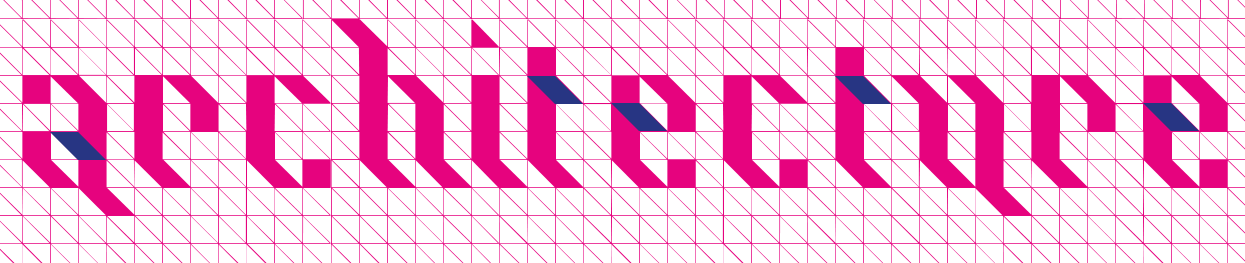
Fontopia [Peter Slager]
Dutch type designer Peter Slager set up his own foundry, Fontopia, in Kampen in 2015. He created the display typefaces Ps Javier (2015), Ps Rooster 1, Ps Rooster 2 (2015), Ps Kampen (2015) and Ps Campen (2015).
Typefaces from 2016: Ps Strijkijzer, Ps Snackbar Prn (a fun font for swingers and late late night people), PS Willy.
Typefaces from 2017: Ps Willy Small But Fine.